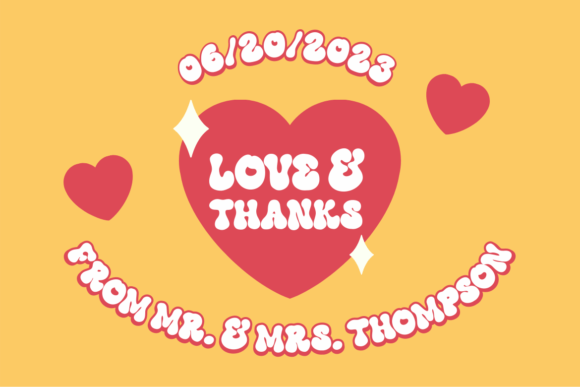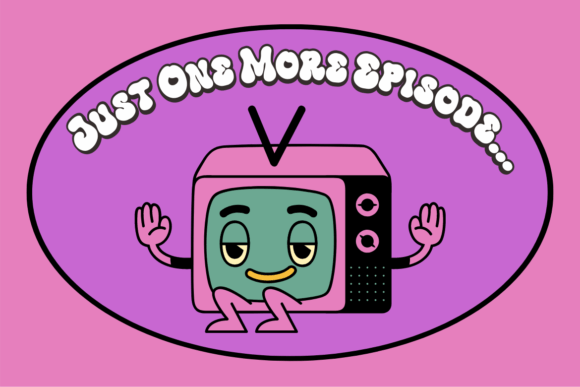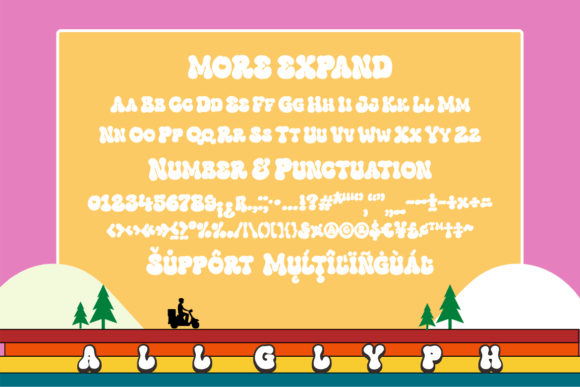
Introduction to More Expand Font Font
Fonts play a crucial role in design, and the More Expand Font font is a typeface that brings both character and versatility to any project. Whether you’re working on a branding project, a website, or a print design, the More Expand Font font offers a unique style that can elevate your work.
More Expand is a versatile, stylish, and playful retro display font perfect for a wide spectrum of applications such as greeting cards, headlines, and many more.
Add it to any of your creative projects, and it will give them a romantic and exquisite feel This font is PUA encoded which means you can access all of the amazing glyphs and ligatures with ease.
Key Features of More Expand Font Font
Why Choose More Expand Font Font?
The More Expand Font font is more than just a typeface – it’s a design tool that helps you communicate your message with style and clarity. Its unique character set and versatile design make it suitable for a wide range of applications, from elegant invitations to bold headlines.
With its carefully crafted letterforms and balanced proportions, the More Expand Font font ensures readability and visual appeal across all mediums.
What makes More Expand Font font special?
The More Expand Font font stands out with its unique design, exceptional readability, and versatility across various design applications.